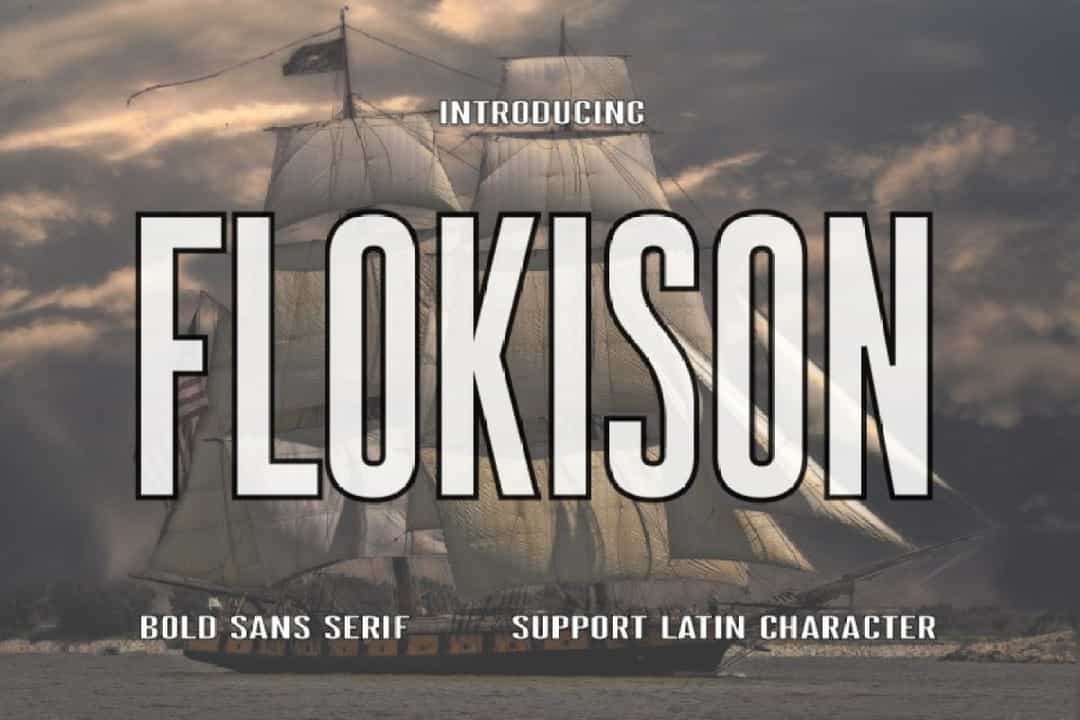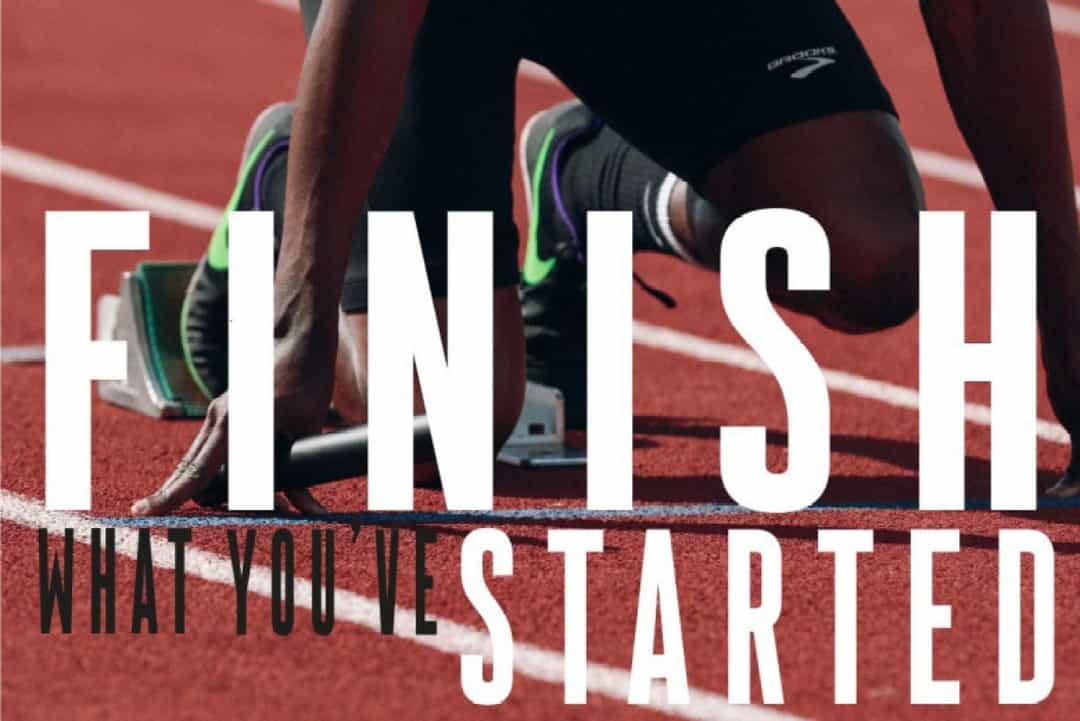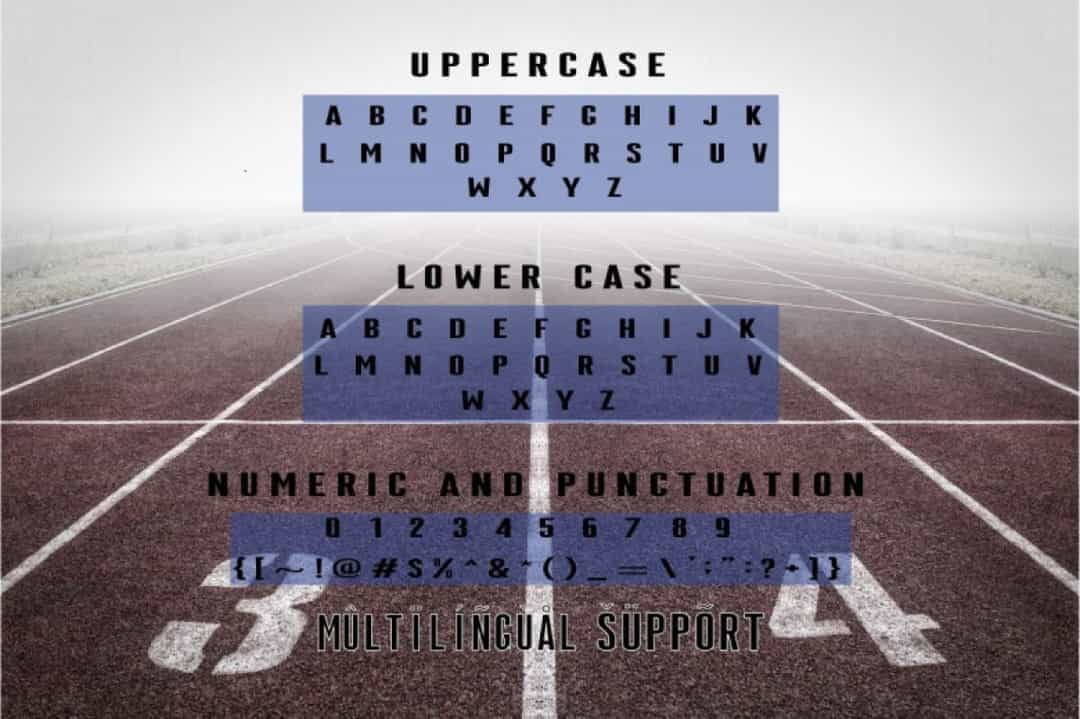
Flokison is a sleek and modern sans serif font which adds the look of sleek sophistication to any style. Boasting well-balanced ratios, sharp corners and balanced proportions this font is ideal for creating modern yet professional designs – ideal for branding, marketing or any design that requires clear yet appealing fonts.